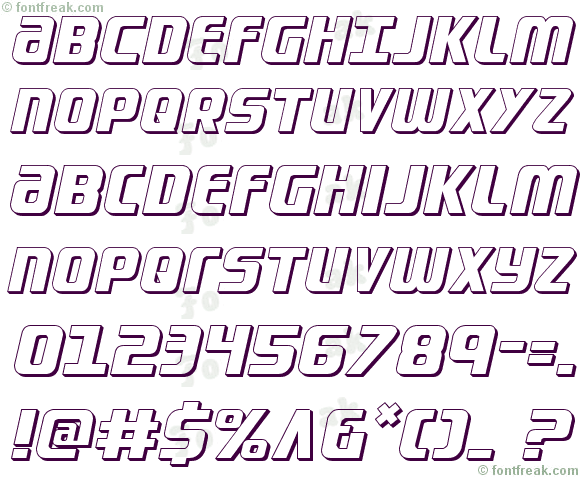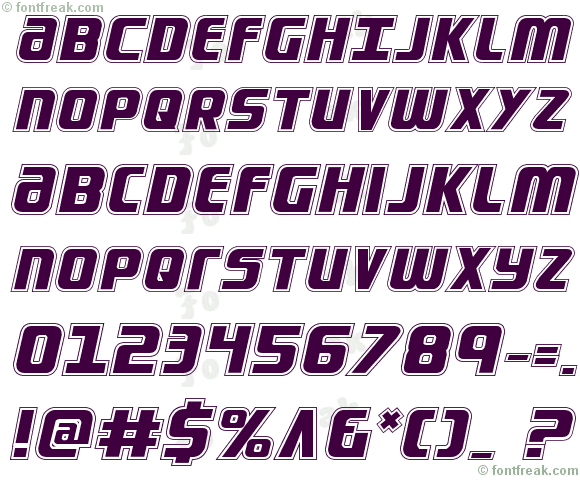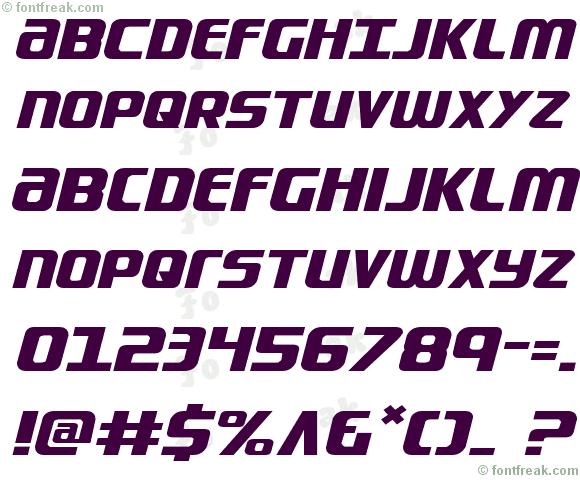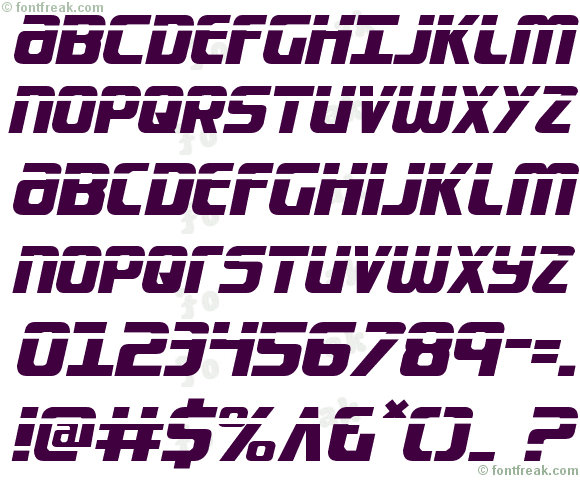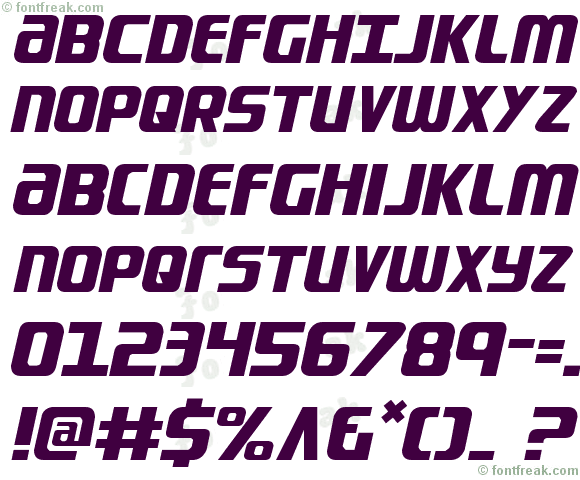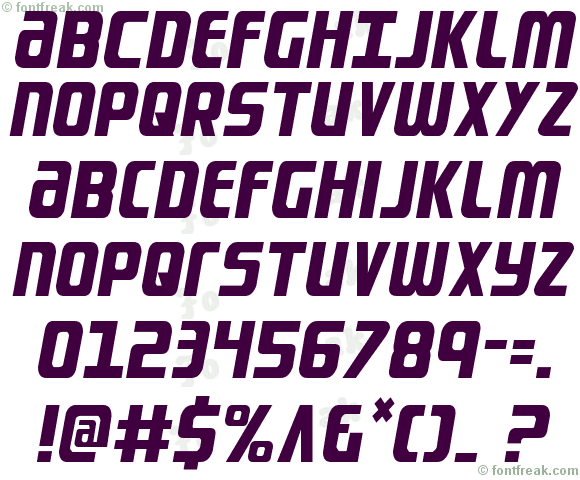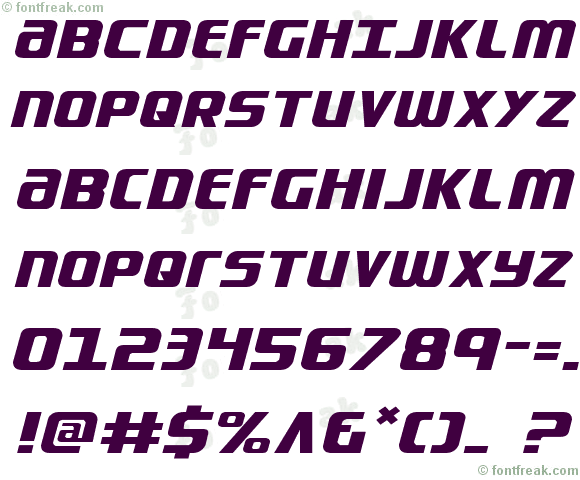
Lightsider Expanded
Lightsider Expanded, designed by Daniel Zadorozny, is a striking display font that falls under the category of sans-serif. Its bold, compact letterforms exude a modern and dynamic feel, making it a perfect choice for a variety of design projects. The font features a consistent stroke weight with minimal contrast, which enhances its legibility while maintaining a sleek appearance. The expanded letter spacing provides an open and airy visual, allowing for effective communication even in larger formats. The angular, geometric shapes give it a futuristic vibe, making it particularly suitable for tech-related themes.
This font can excel in numerous applications. It is an excellent choice for movie posters, where its boldness can capture attention and convey excitement. Additionally, Lightsider Expanded works well for branding and logo designs, particularly for businesses looking to project a contemporary image. Its unique style also makes it a great fit for promotional materials, such as flyers and banners, where a strong visual presence is essential. Graphic designers and content creators will appreciate its versatility in various digital and print formats.
In conclusion, Lightsider Expanded stands out due to its bold, geometric design and versatility across various applications. Whether for eye-catching advertisements or sleek branding, this font brings a fresh and engaging look that can enhance any project. Its free availability further adds to its appeal, making it an essential addition to any designer's toolkit.